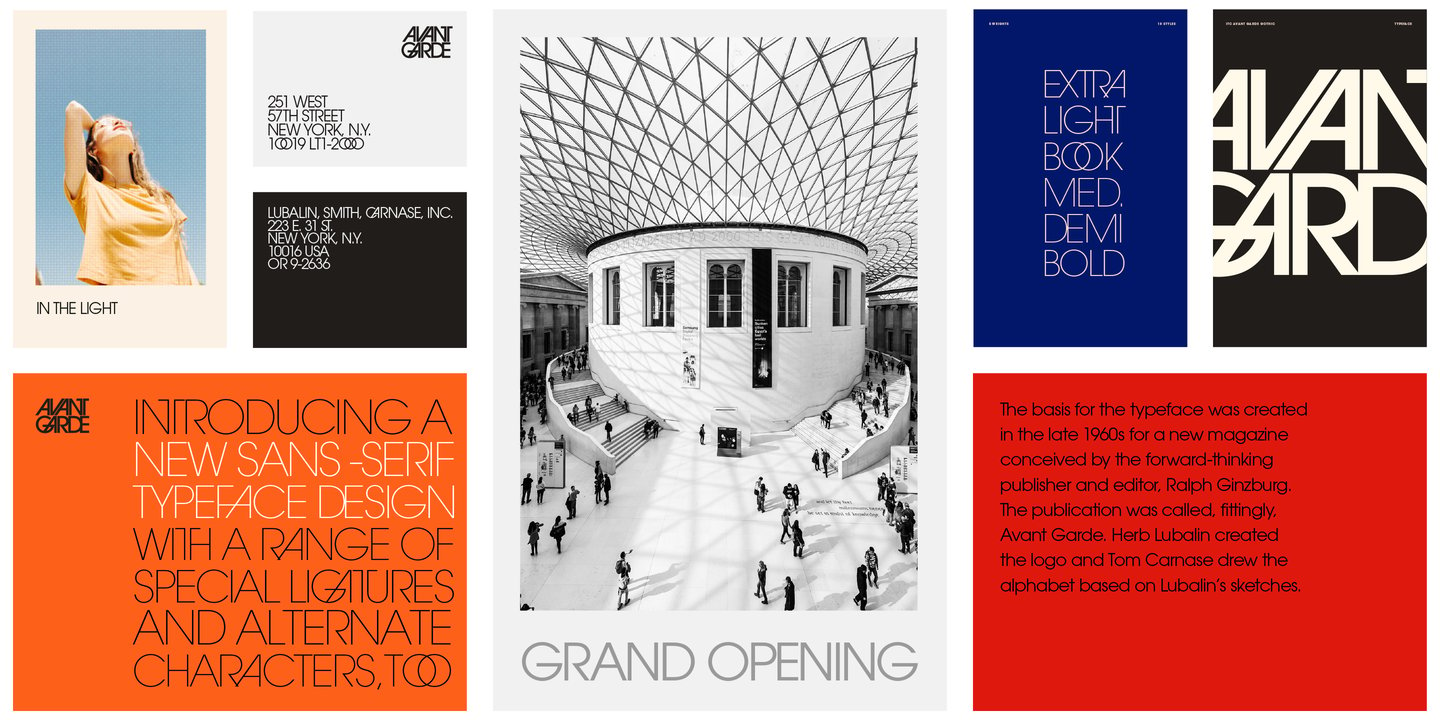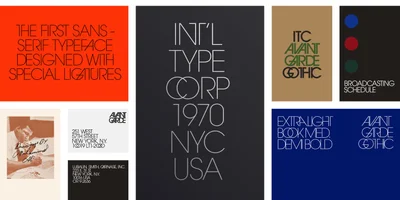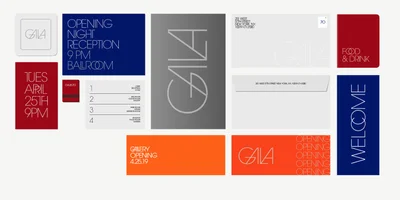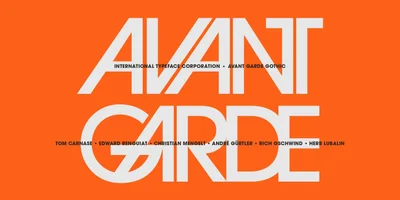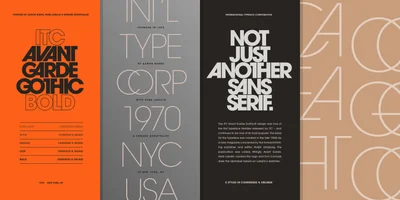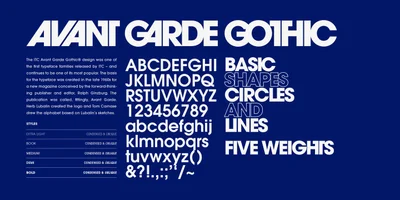
Raleway vs ITC Avant Garde
Choosing between ITC Avant Garde and Raleway comes down to whether you want the original tone or a practical open-source substitute. With 70% similarity, Raleway offers elegant geometric forms with sophisticated proportions approaching ITC Avant Garde's refinement. Raleway also ships as a variable font, so you can dial in weights instead of being stuck with fixed steps.
| Feature | Raleway | ITC Avant Garde |
| Classification | sans-serif | display |
| Variable Font | Yes | No |
| Weights | Variable (100-900) | Multiple |
| Language Support | latin, latin-extended, cyrillic, cyrillic-extended, vietnamese | latin, latin-extended, cyrillic |
Where You'll See These Fonts
ITC Avant Garde
- Avant Garde magazine logo
- 1970s graphic design
- Album covers
- Fashion editorial
- Logo design
Recommended: Raleway
- Particularly suited for fashion branding and editorial design
- Variable font with continuous weight adjustment
- Supports 5 scripts including cyrillic and cyrillic-extended
- Delivers a elegant, modern, sophisticated aesthetic
- Popular in enterprise-corporate and financial-services design
Consider: ITC Avant Garde
- Designed specifically for branding and display
- Used by Avant Garde magazine logo, 1970s graphic design